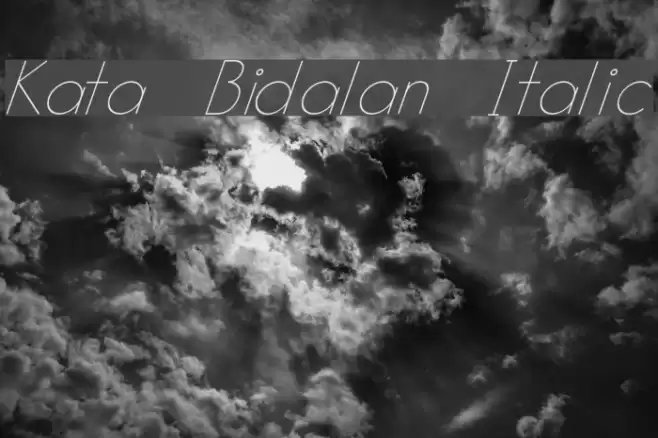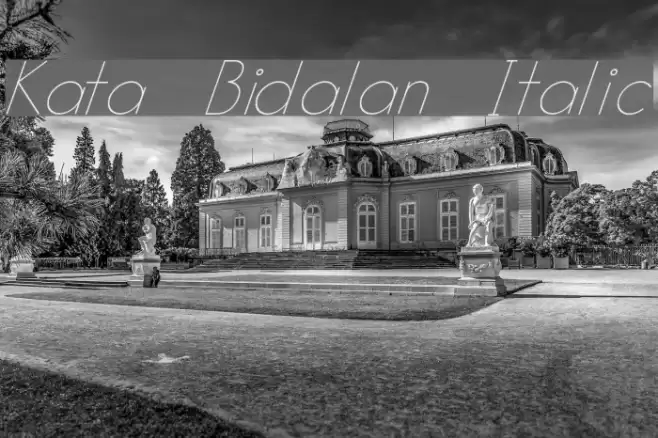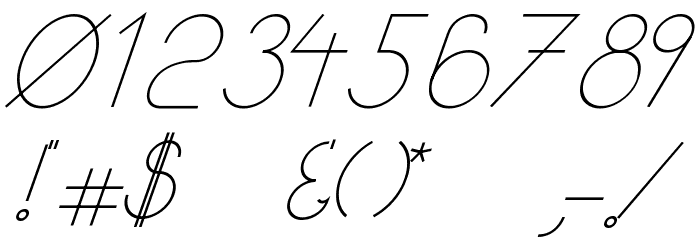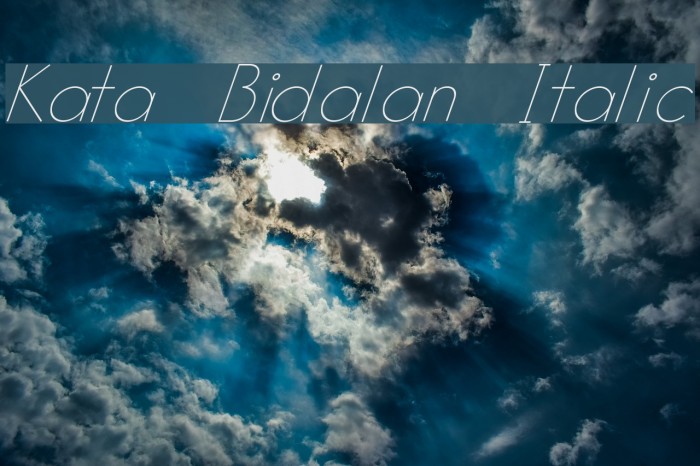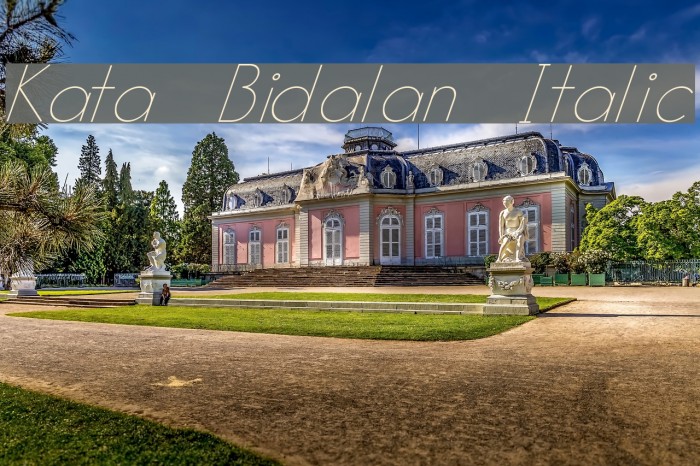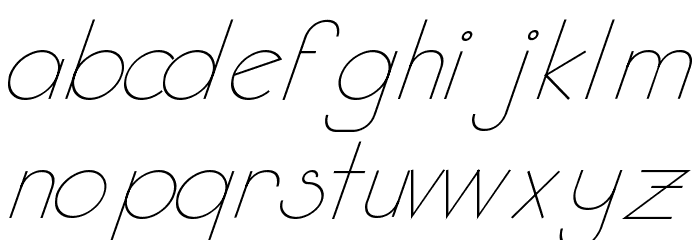
Kata Bidalan Italic
This font features a sleek, italicized style with a modern and elegant touch. The characters are thin and elongated, giving a sense of sophistication and fluidity. The uppercase letters maintain a consistent height, while the lowercase letters exhibit a gentle slant, enhancing the italic effect. The numerals are distinct and clear, with a slight curvature that complements the overall design. Special characters are seamlessly integrated, maintaining the font's cohesive appearance. The font's minimalistic approach and clean lines make it versatile for various design applications.
A sleek, italicized font with a modern and elegant style.
- Proposed Projects: Ideal for fashion magazines, elegant invitations, branding for luxury products, and modern website headers.
- Category: Modern
- Weight: Light
- Use Case: Headlines, Logos, Invitations